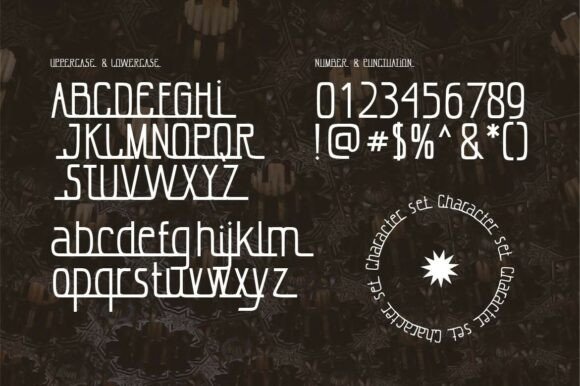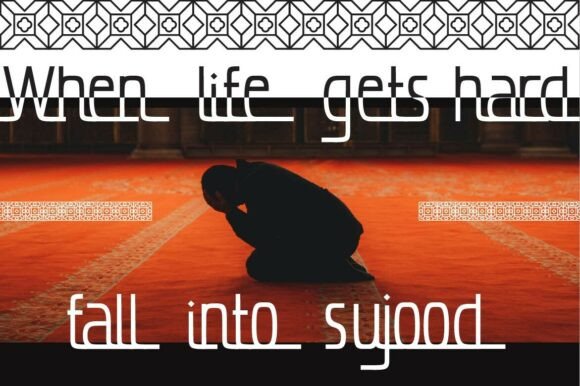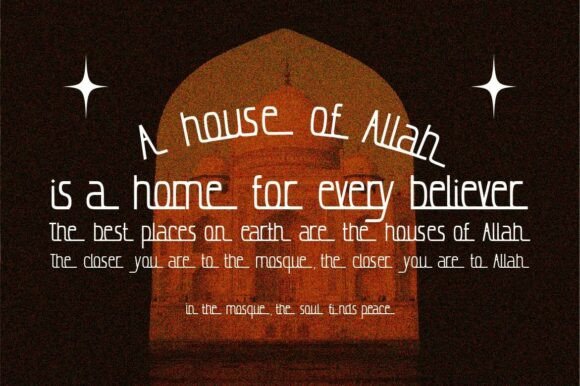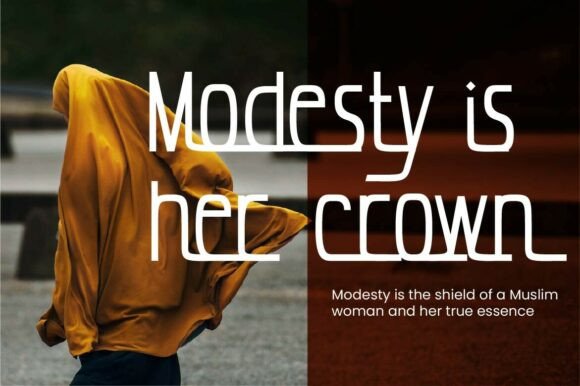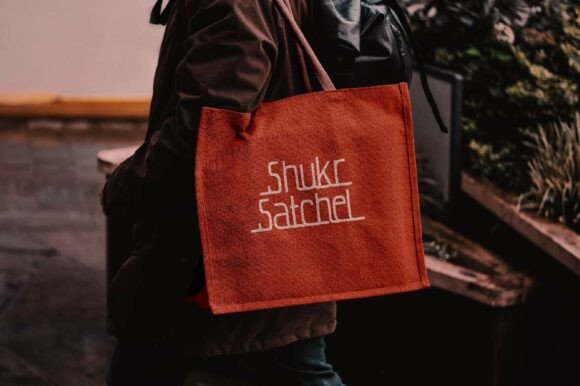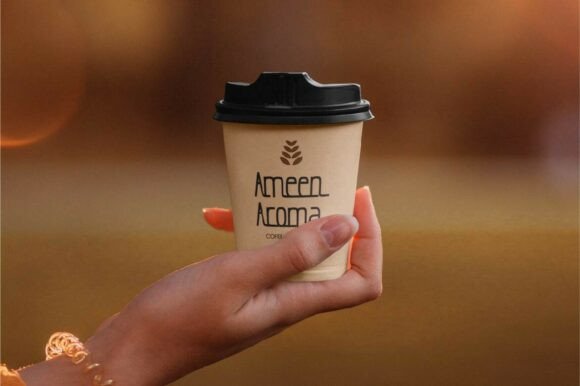
Introducing Al Burdah Font: The Perfect Blend of Tradition and Modernity
In the world of typography, few fonts have managed to strike a balance between tradition and modernity as effortlessly as Al Burdah. This stunning Islamic display font is designed to evoke a sense of elegance and cultural resonance, making it the perfect choice for designers and crafters looking to add a touch of sophistication to their projects.
The Inspiration Behind Al Burdah
Al Burdah is inspired by the rich heritage of classical Kufic calligraphy, one of the oldest and most revered forms of Arabic script. The font’s creator sought to distill the essence of this traditional art form and infuse it with a modern twist, resulting in a unique and captivating typeface that is both timeless and contemporary.
Design Characteristics of Al Burdah
So, what sets Al Burdah apart from other fonts? The answer lies in its distinctive design characteristics. The font features clean, geometric letterforms with an “Arabesque-contemporary” soul, which gives it a unique and instantly recognizable style. The elongated baselines and rhythmic, fluid strokes pay homage to classical Kufic calligraphy, while the sophisticated weight and architectural balance ensure that the font exudes elegance and refinement.
Uses for Al Burdah Font
Al Burdah is an incredibly versatile font that can be used in a wide range of applications. Some of the most popular uses for this stunning typeface include:
- Premium Halal branding: Al Burdah’s sophisticated and elegant design makes it the perfect choice for brands looking to convey a sense of luxury and refinement.
- Independent Islamic literature covers: The font’s unique blend of tradition and modernity makes it an excellent choice for book covers, magazine covers, and other literary projects.
- Ramadan event stationery: Al Burdah’s elegant design makes it perfect for creating beautiful and meaningful stationery for Ramadan events and celebrations.
- High-impact social media headers: The font’s bold and eye-catching design makes it an excellent choice for social media headers, where it can help grab attention and convey a sense of style and sophistication.
Why Choose Al Burdah Font?
So, why should designers and crafters choose Al Burdah over other fonts? Here are just a few compelling reasons:
- Unique blend of tradition and modernity: Al Burdah is a truly one-of-a-kind font that combines the best of traditional Arabic calligraphy with modern design sensibilities.
- Elegant and sophisticated design: The font’s clean lines, geometric shapes, and fluid strokes create a sense of elegance and refinement that is hard to find in other fonts.
- Versatility: Al Burdah can be used in a wide range of applications, from branding and literature to stationery and social media.
- Cultural resonance: The font’s roots in traditional Arabic calligraphy give it a deep cultural resonance that can help designers and crafters connect with their audience on a deeper level.
In conclusion, Al Burdah is a truly exceptional font that offers a unique blend of tradition and modernity. Its elegant design, versatility, and cultural resonance make it the perfect choice for designers and crafters looking to add a touch of sophistication to their projects. Whether you’re working on a premium Halal branding project, an independent Islamic literature cover, or a high-impact social media header, Al Burdah is sure to impress.